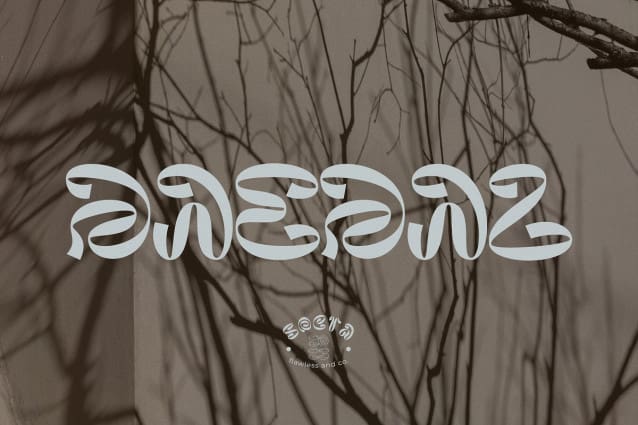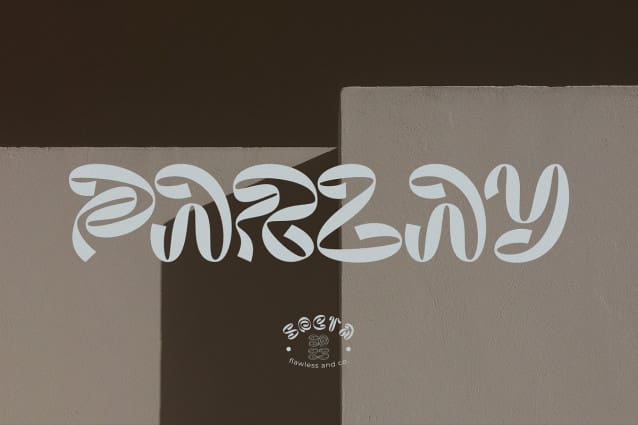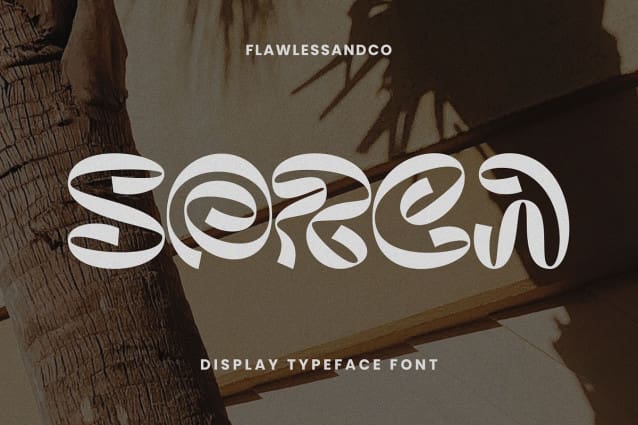
Sorca Display Font
Sorca Display Font – A Display Typeface Font. Dive into the world of sophistication and uniqueness with “Sorca,” a captivating display typeface font that is adorned with wavy and distinctive letter details. With its artistic letterforms and unparalleled style, “Sorca” is designed to be the focal point of your design, evoking a sense of creative elegance and originality.